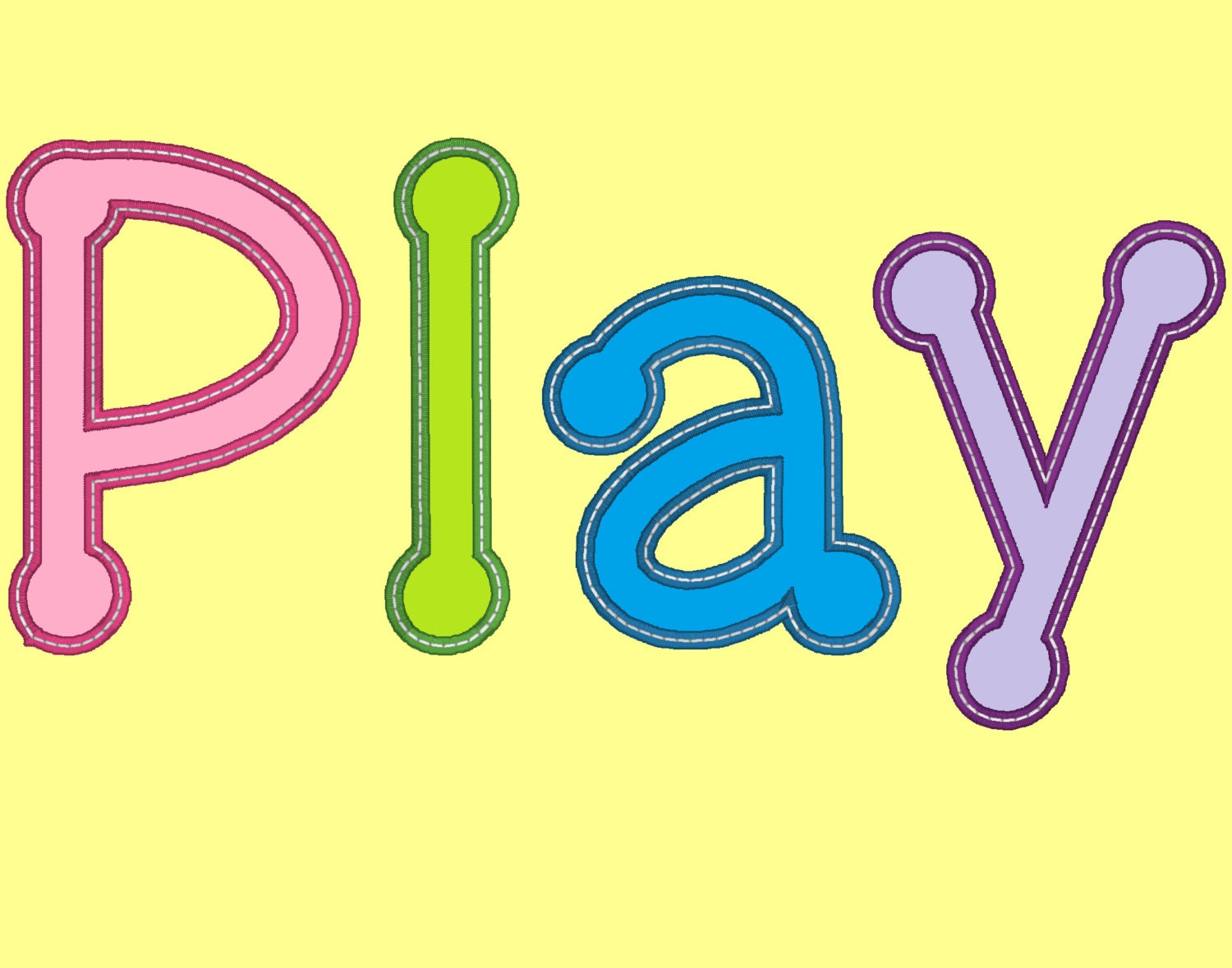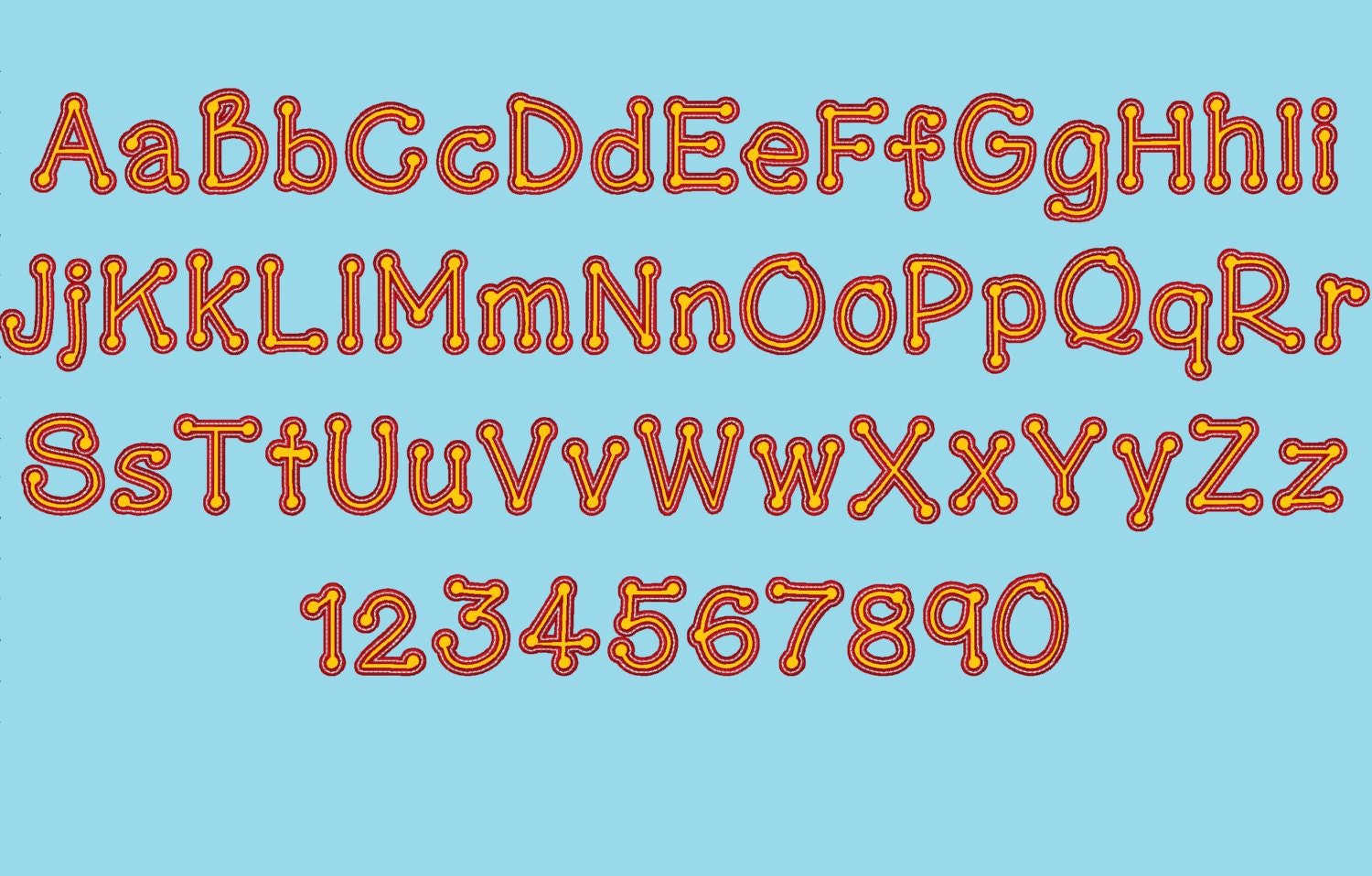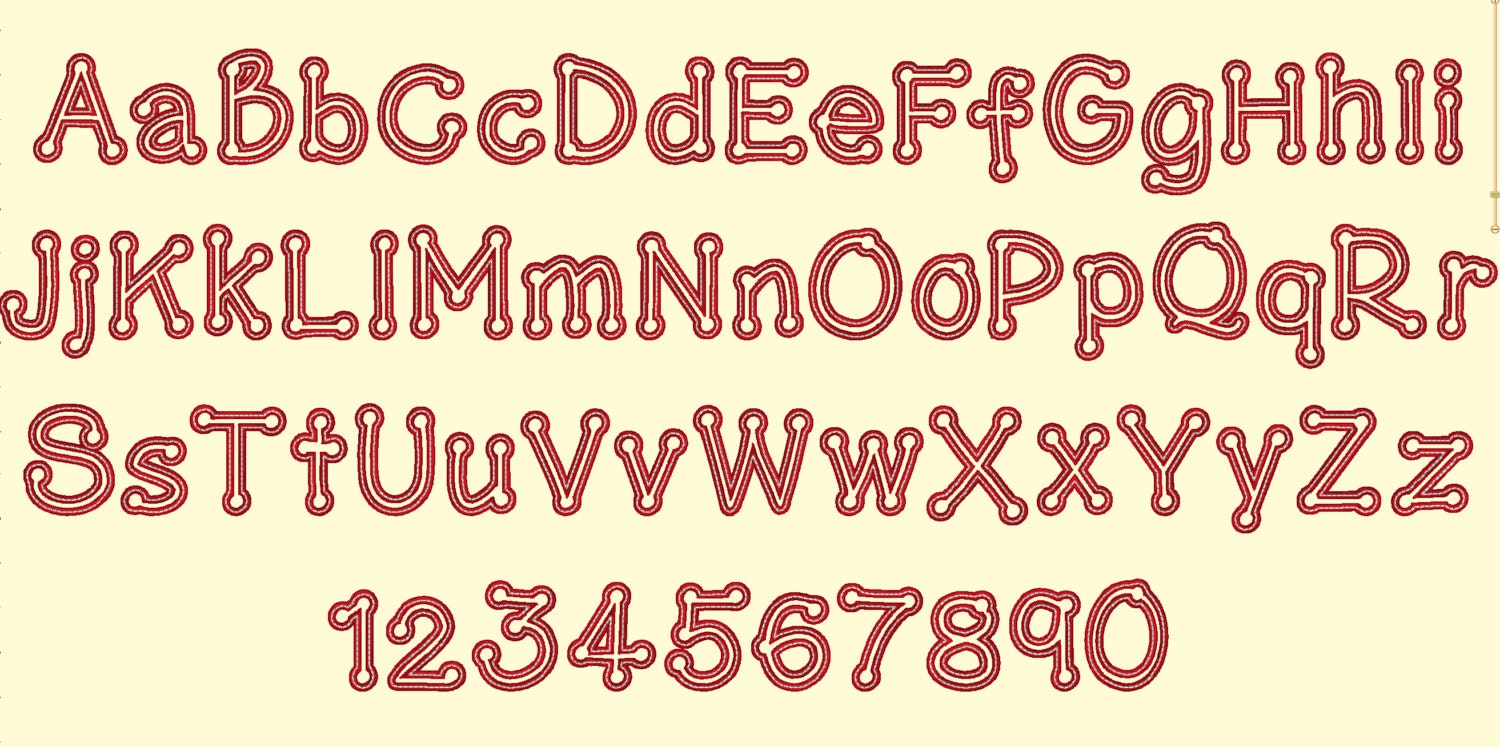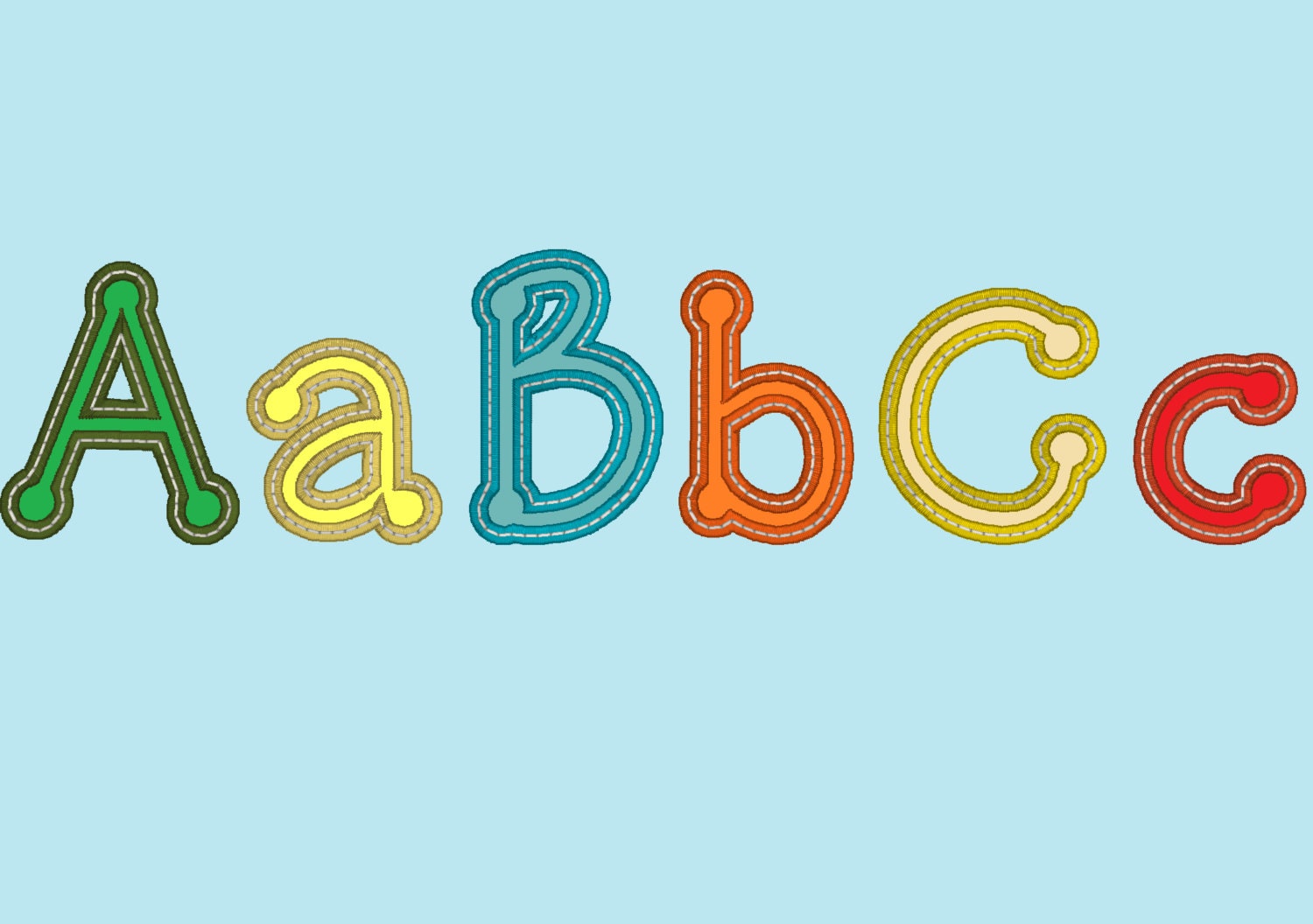
Dots Applique Font machine embroidery applique design in assorted sizes, playful funny kids alphabet monogram, BX included
Capital letters, letters and numbers.
Has a wide nice satin stitch and white top stitch for a neat look.
Very cute alphabet. Loved the top stitching on the letters. Good value.